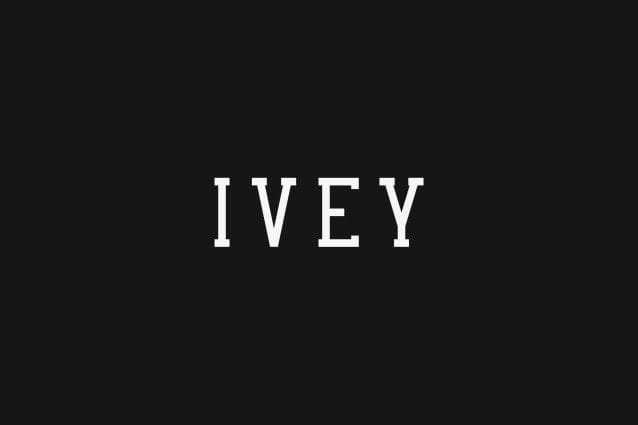
Ivey Slab Font
Ivey Slab Font is an elegant and versatile font that will make your typography truly unique! It will enchant every logo, branding, headline, or plain text!